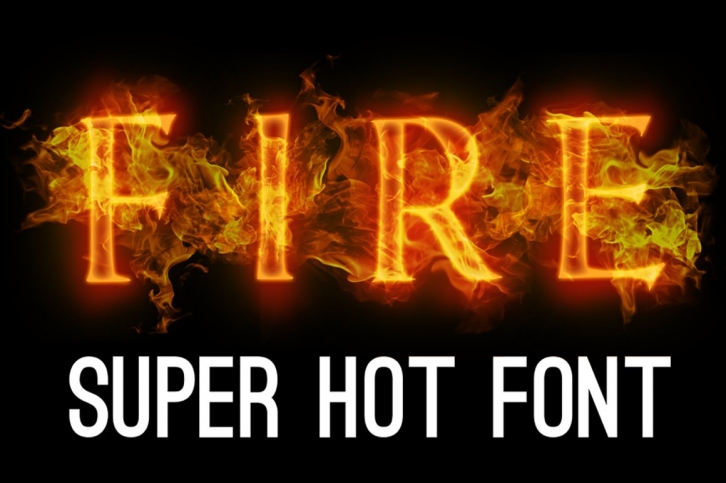
Super hot font - Graphic font clipart Clip-art graphic font symbols
Create your SUPER HOT POSTERS just in minutes!
Just combine hot fire font symbols - and your poster is ready!